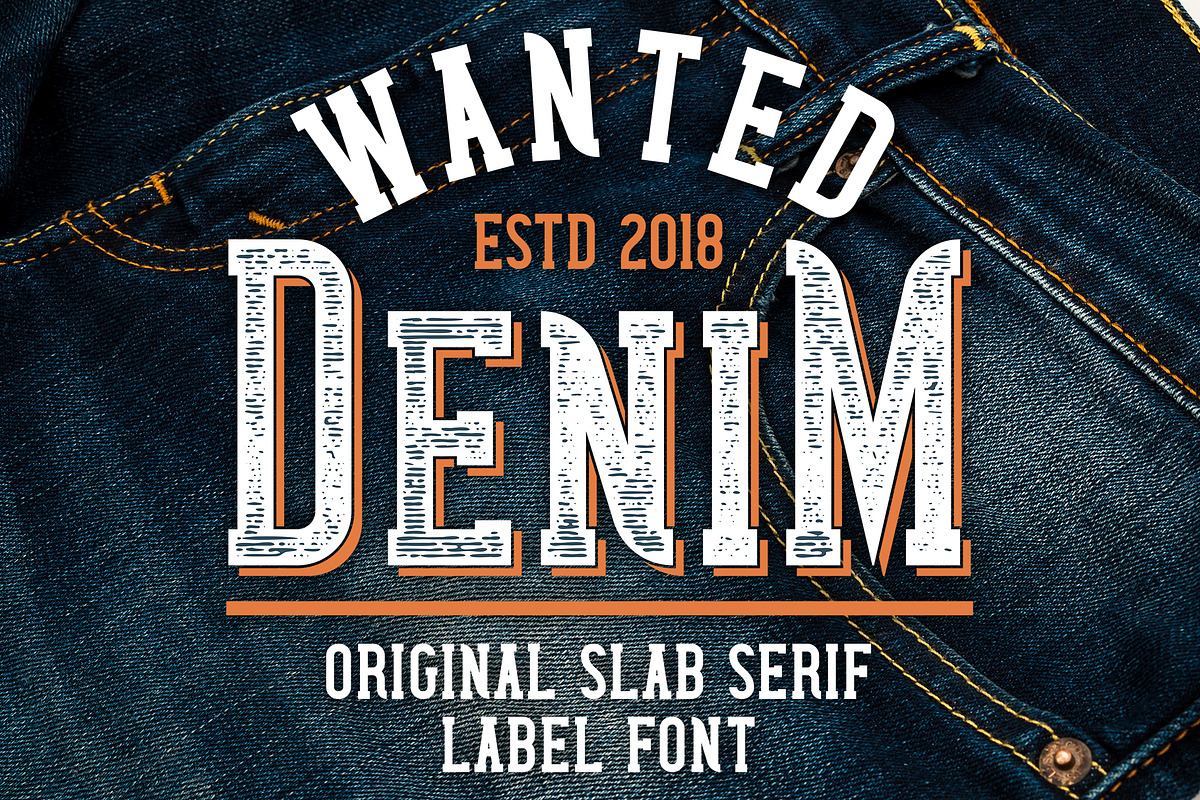
Wanted Denim Layered Font Free Download is a bold, western-inspired typeface with a unique layered style that evokes rugged Americana and vintage denim branding. Perfect for poster designs, signage, logos, apparel, and packaging, this font captures the essence of old-school cowboy aesthetics with a modern twist.
Its layered design allows for creative combinations—add shadows, textures, or outlines to achieve a striking, dimensional look that stands out in both print and digital formats. Whether you're designing a saloon sign or a retro fashion label, Wanted Denim brings authenticity and bold style to the table.